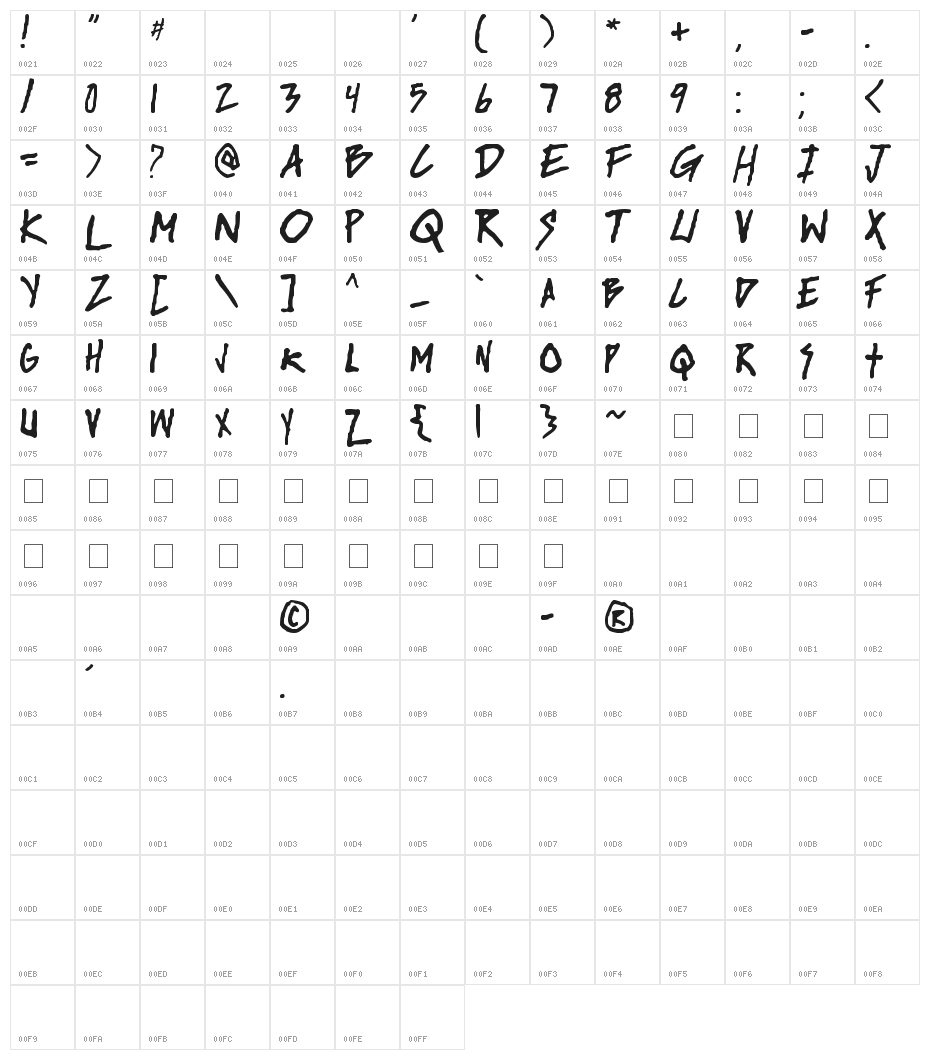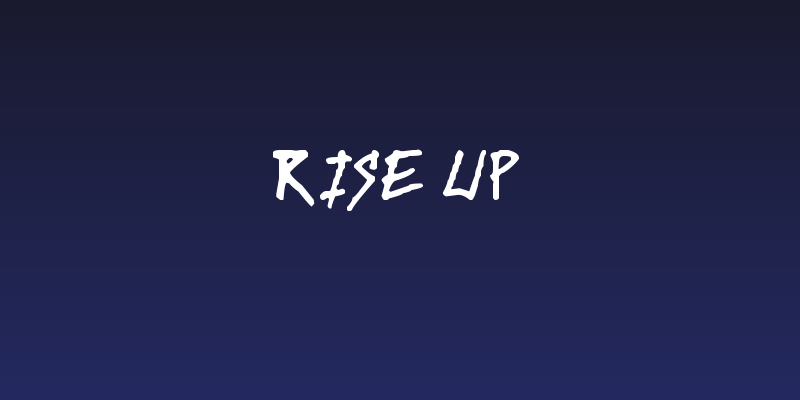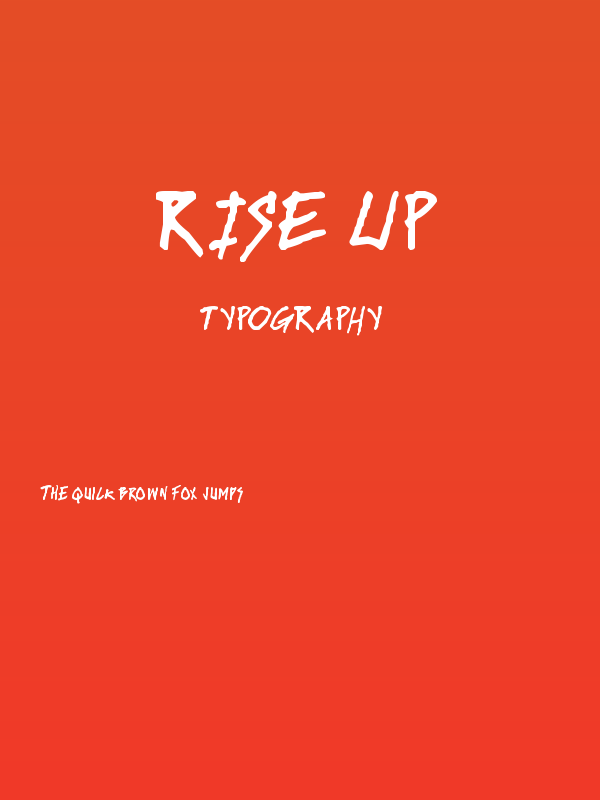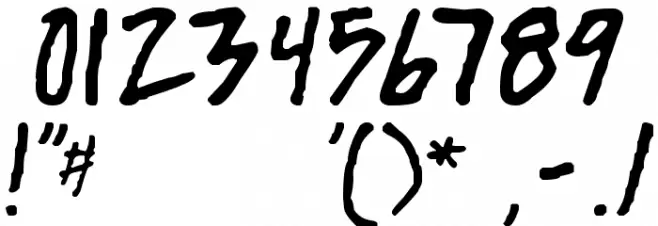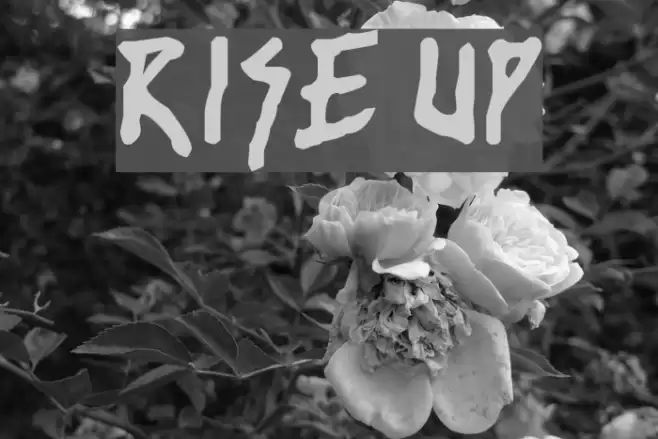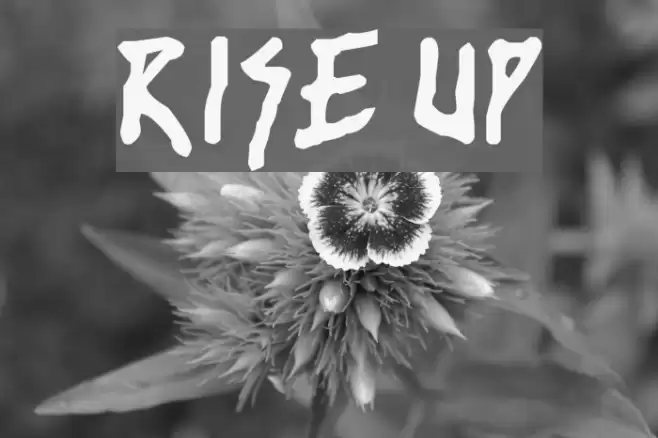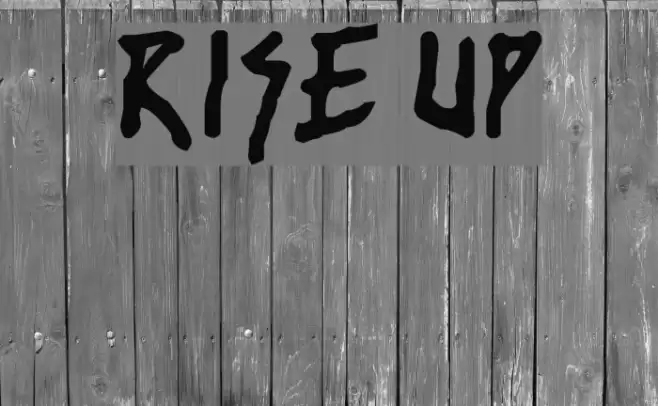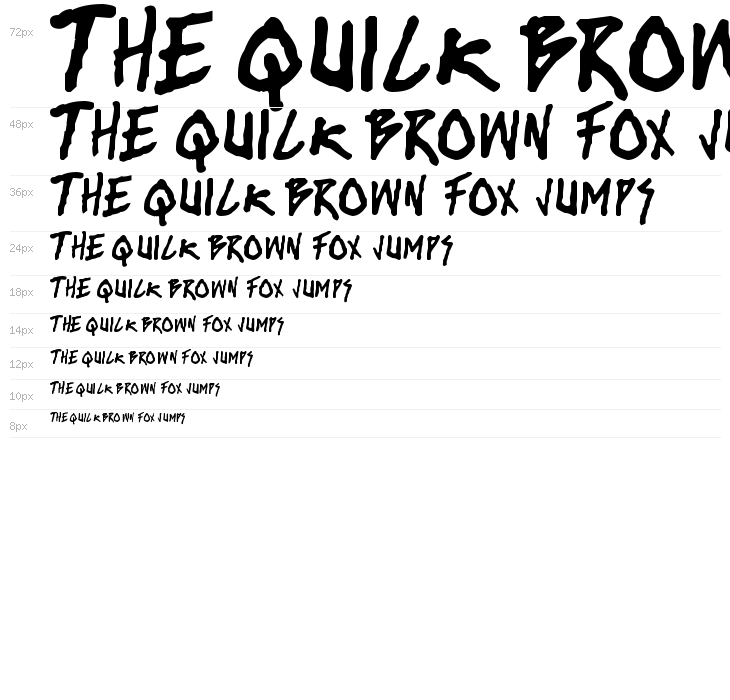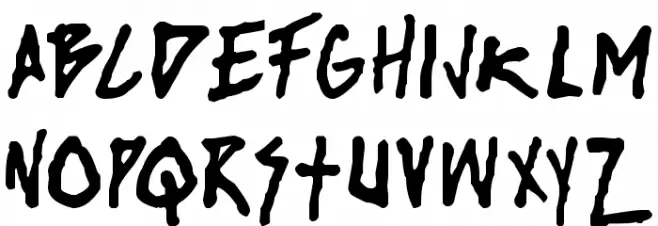
rise up Font
| Projetos propostos | This font is perfect for posters, album covers, graffiti art, and any project that seeks to convey a sense of energy and creativity. |